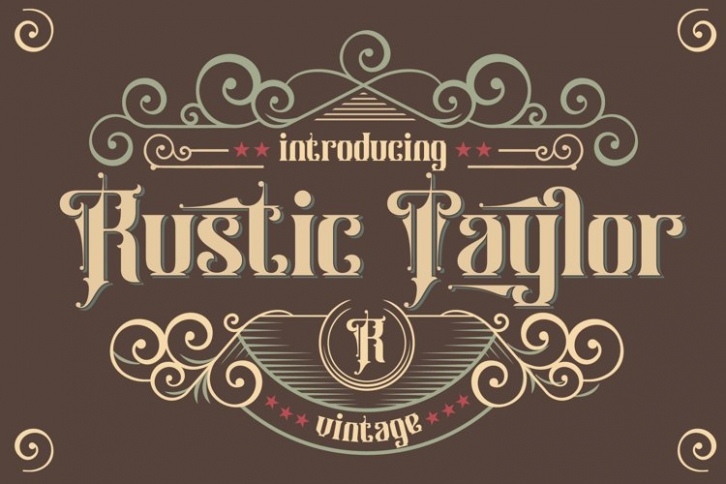
Rustic Taylor is a beautiful font that was designed by plusstore. It's a great choice for designers and creatives who need such a font. It was released on December 7, 2021 and the file size is 4.27 MB. Rustic Taylor may give a more youthful, expressive and casual look to your project. It is a very beautiful, refined, elegant, and high-quality font.